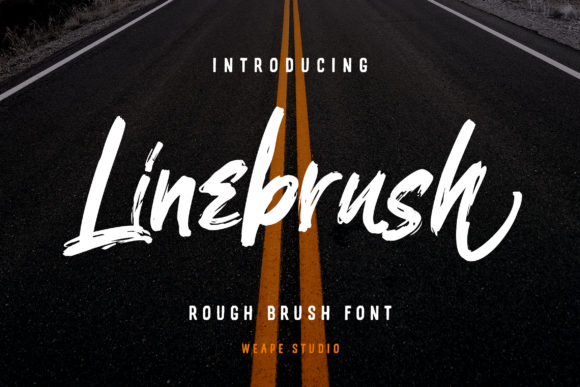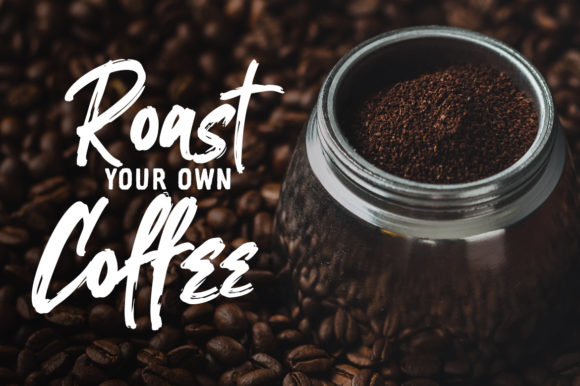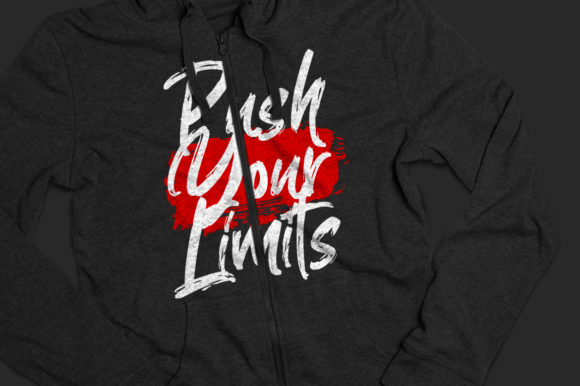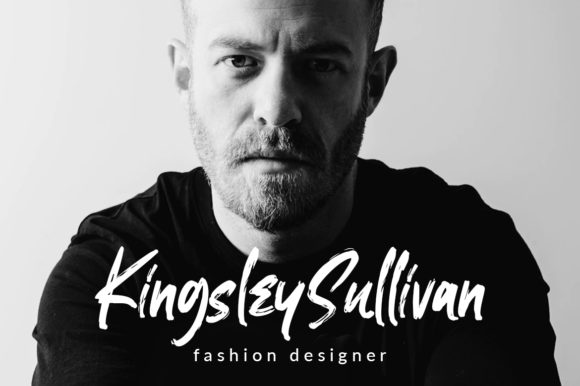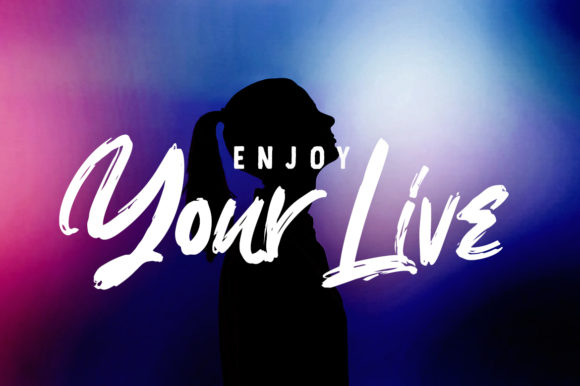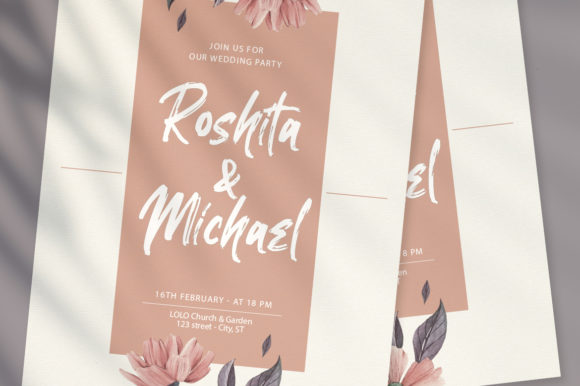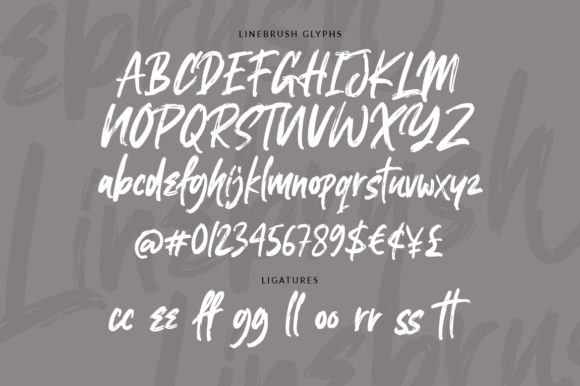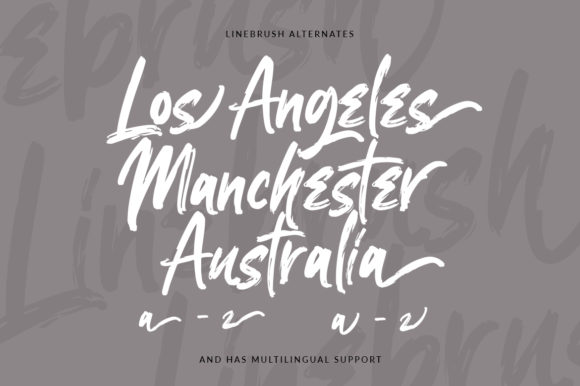
Linebrush Font
About Linebrush Font
Linebrush is a casual, fun script font, created by using a brush pen. This font is the perfect fit for all of your logos, branding, social media, and crafty DIY projects.